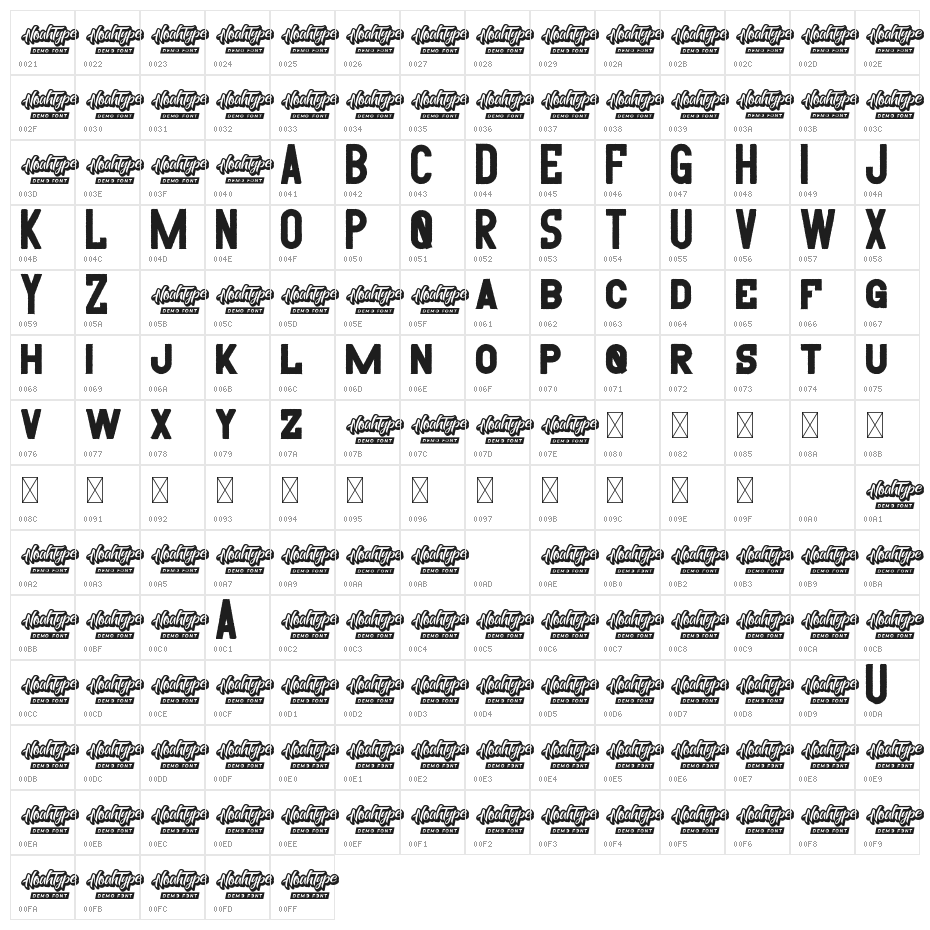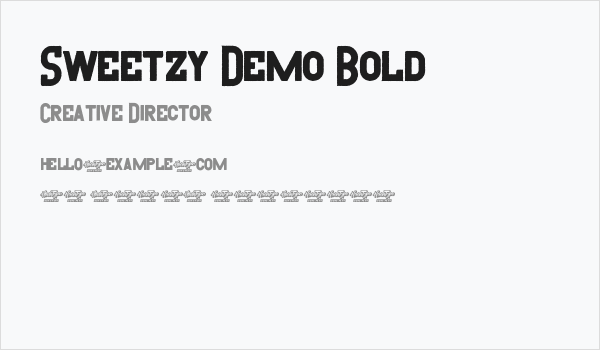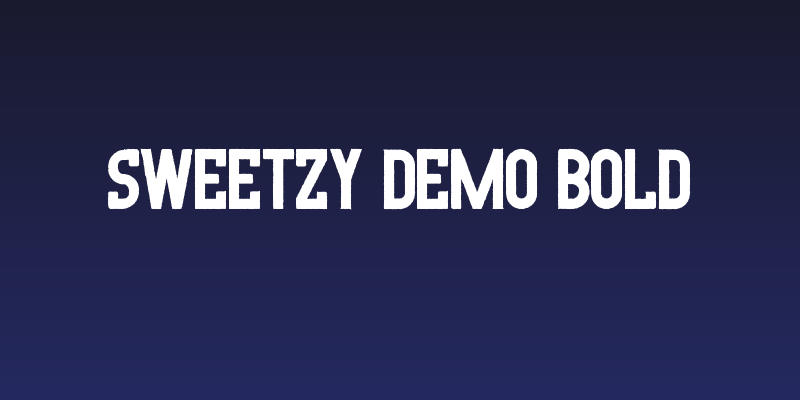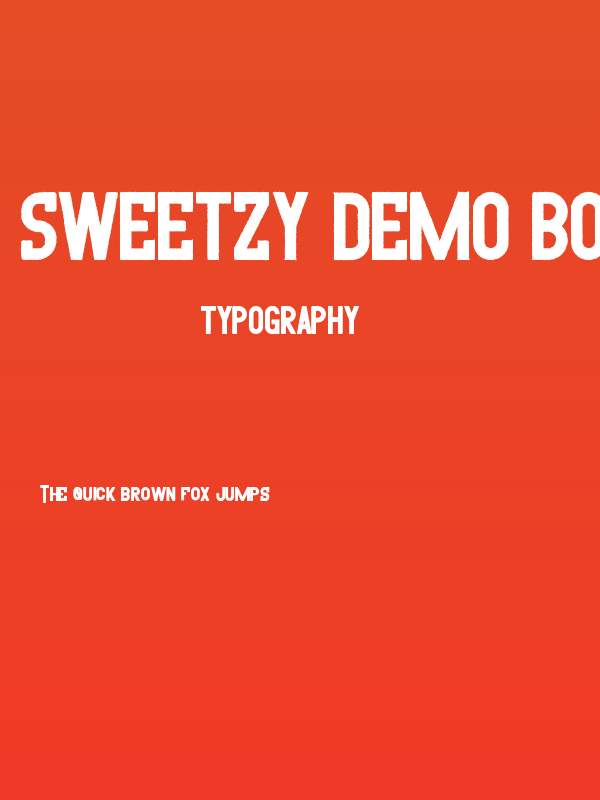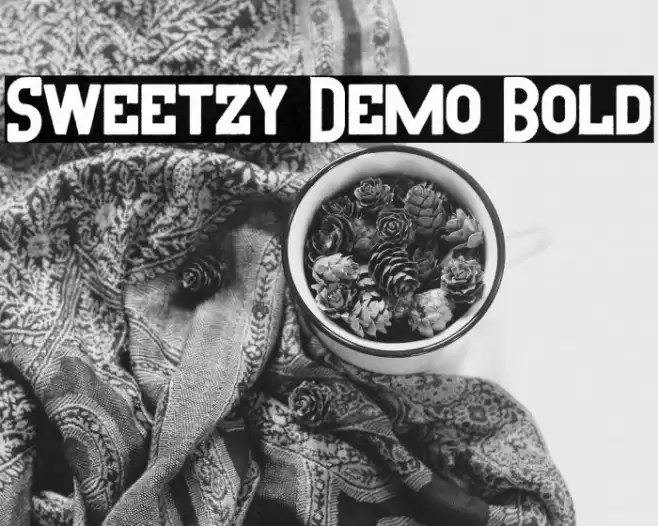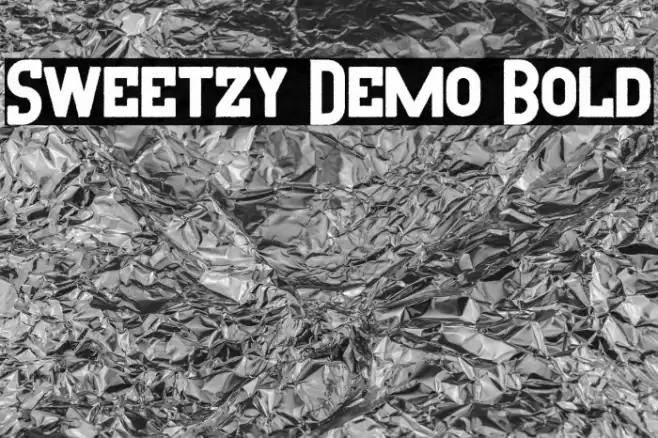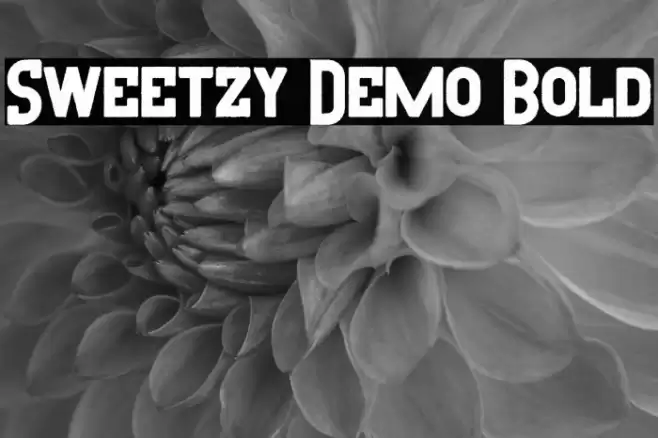
Sweetzy Demo Bold Font
This font features a bold and robust design with a strong presence. The characters are constructed with thick strokes, giving them a powerful and impactful appearance. The uppercase letters are uniform in height, while the lowercase letters maintain a consistent style, ensuring readability. The font's edges are slightly rounded, adding a touch of softness to its otherwise solid structure. This design is ideal for making a statement, with its boldness capturing attention instantly. The spacing between characters is tight, contributing to its compact and cohesive look. This font is versatile, suitable for various applications where a strong visual impact is desired.